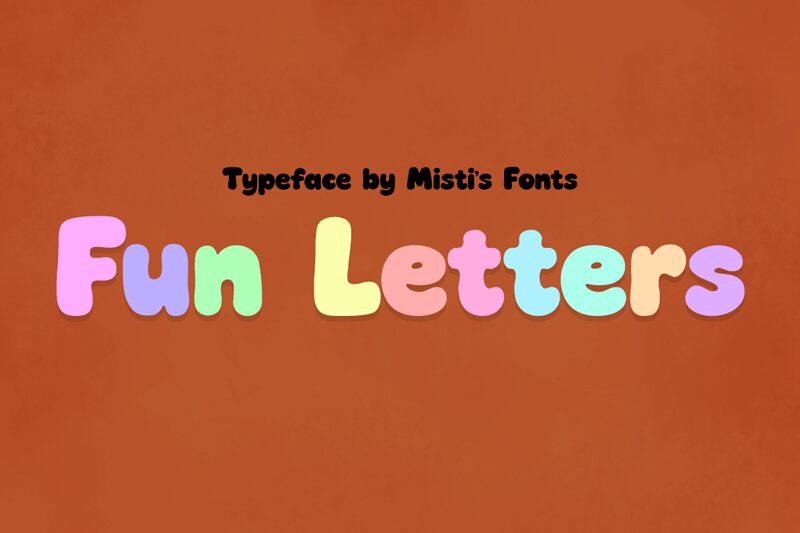
Fun Letters font family by Misti's Fonts is a free playful Cartoon font that comes with 2 font styles. It is informal with rounded characters that appear animated. The letters are whimsical, friendly, and inviting. With a cheerful appearance, the font is a great option for projects that require texts with a young, relaxed, casual, and youthful appearance.
Fun Letters is great in banners, headers, magazine covers, book covers, branding, t-shirt design, invitations, flyers, packaging, and business cards. It can also be used in advertising campaigns, wall art, social media posts, and editorial design.
Fun Letters is a playful decorative display font bursting with color and personality. Its rounded, bubbly letterforms and smooth curves create a cheerful and approachable vibe, making it perfect for projects that need a splash of joy and energy.